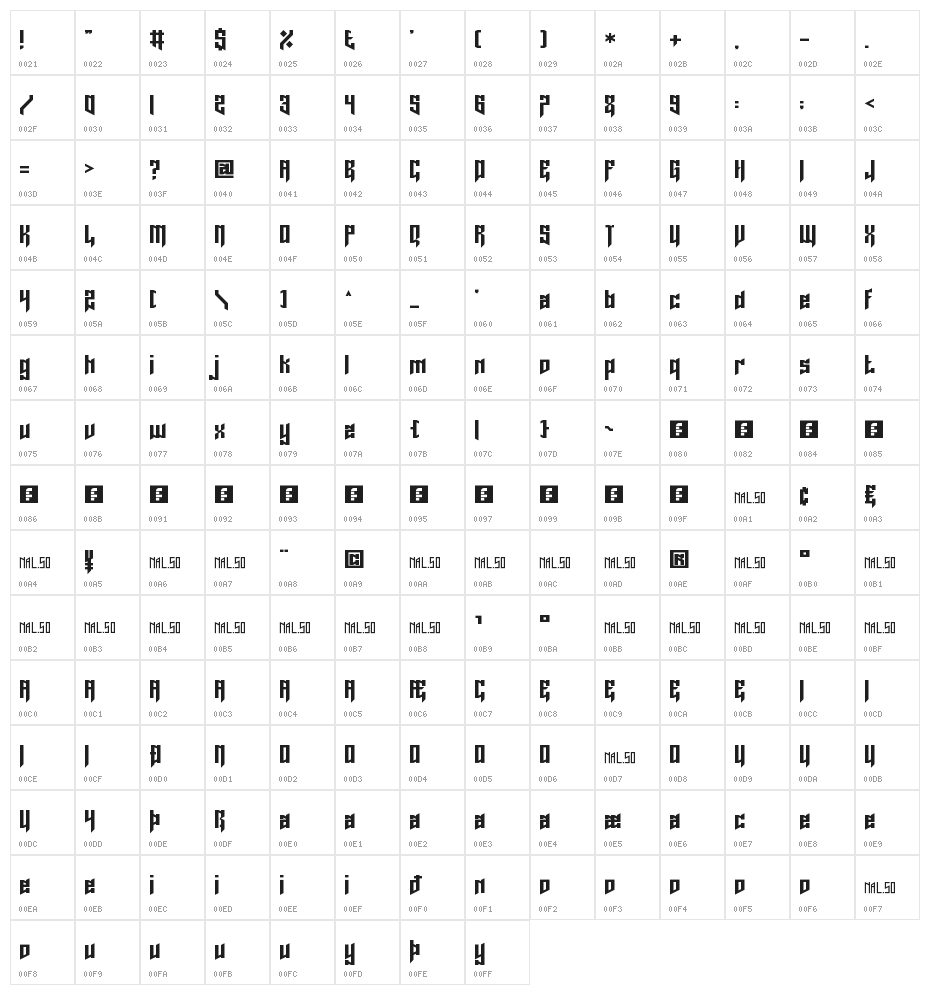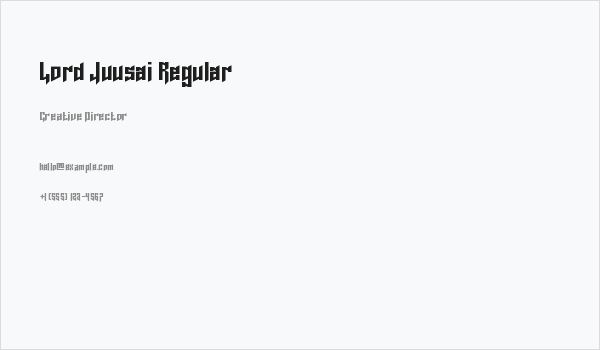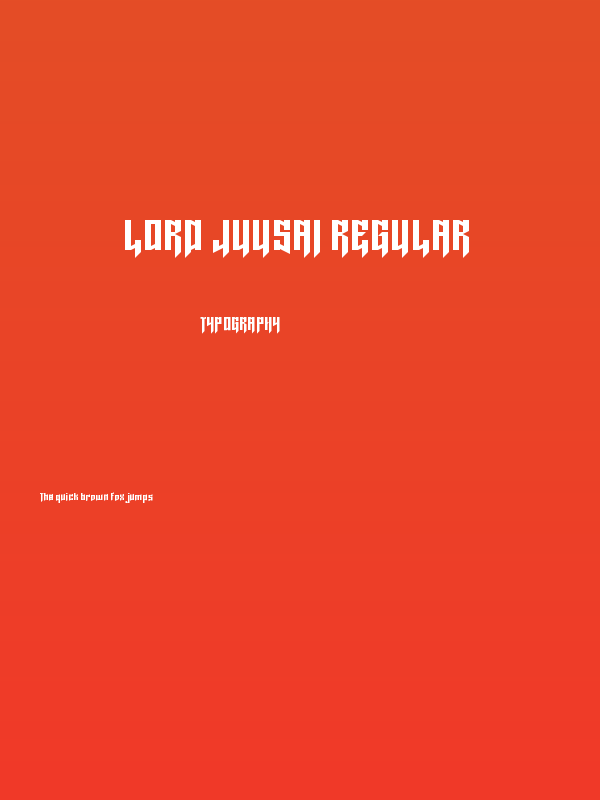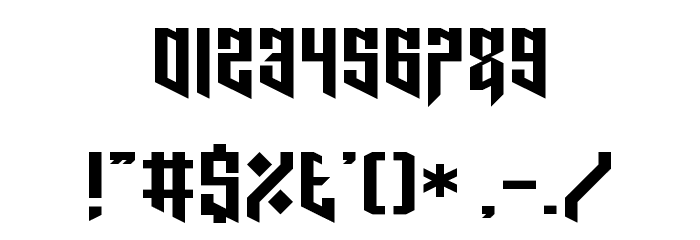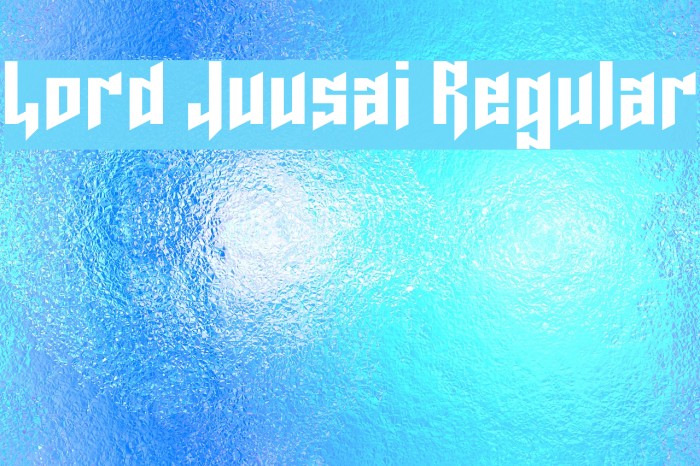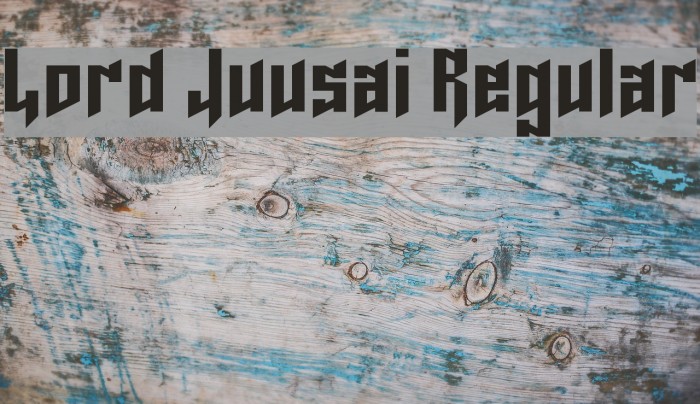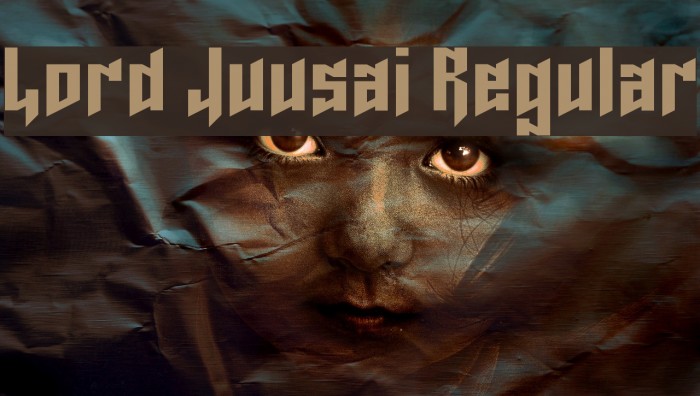
Lord Juusai Regular Font
Lord Juusai Regular Description
This font exhibits a bold and angular style, characterized by its sharp edges and geometric forms. The uppercase letters are particularly striking, with a strong presence that commands attention. The lowercase letters maintain the same angular aesthetic, ensuring consistency across the typeface. The numerals and special characters are equally bold, making them stand out in any design. This font's unique style is reminiscent of Gothic or medieval influences, yet it maintains a modern edge with its clean lines and structured appearance.
| Overall Style | Modern Gothic |
| Proposed Projects | Ideal for projects that require a strong visual impact, such as posters, album covers, video game titles, or branding for edgy or alternative products. |